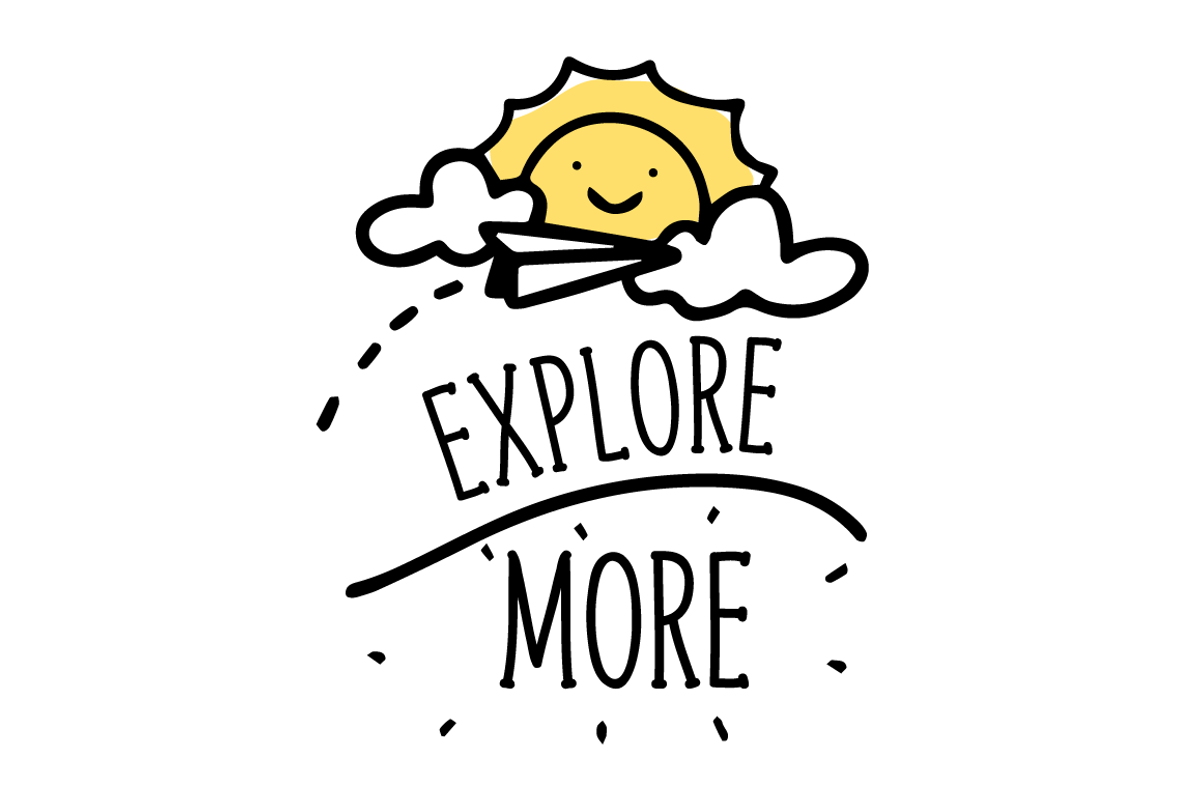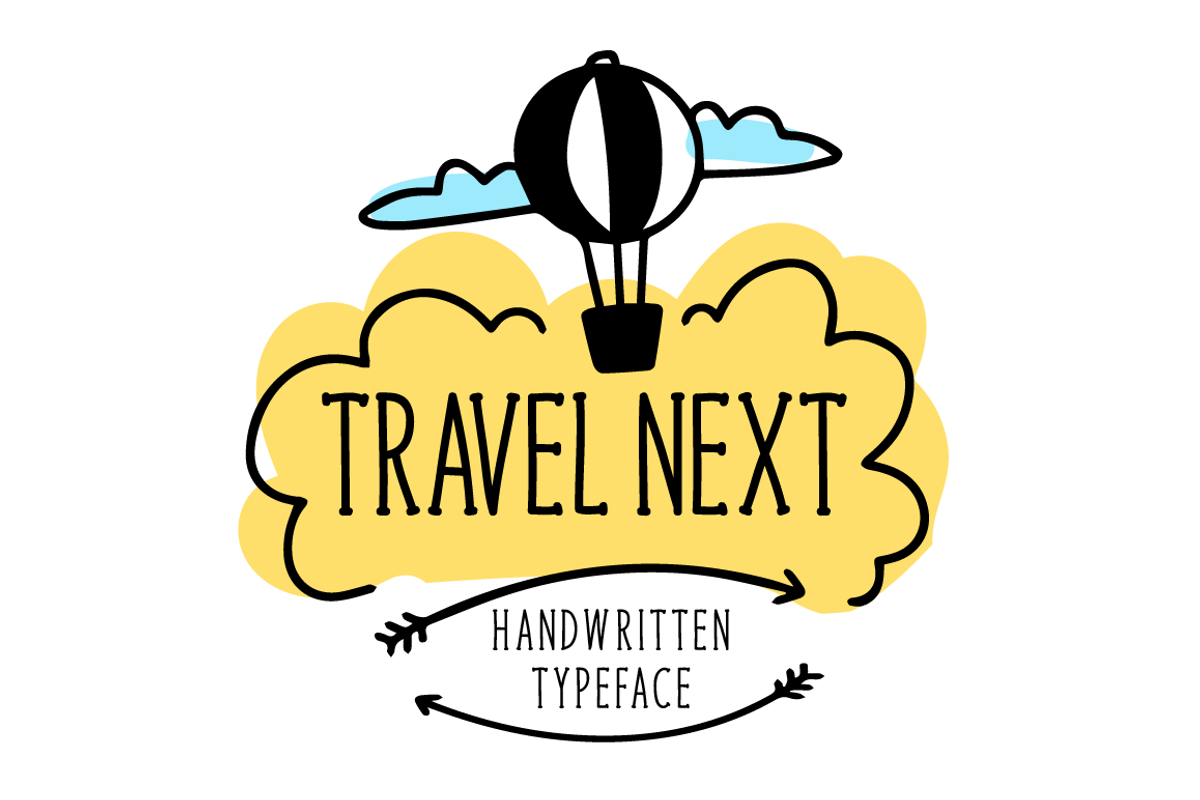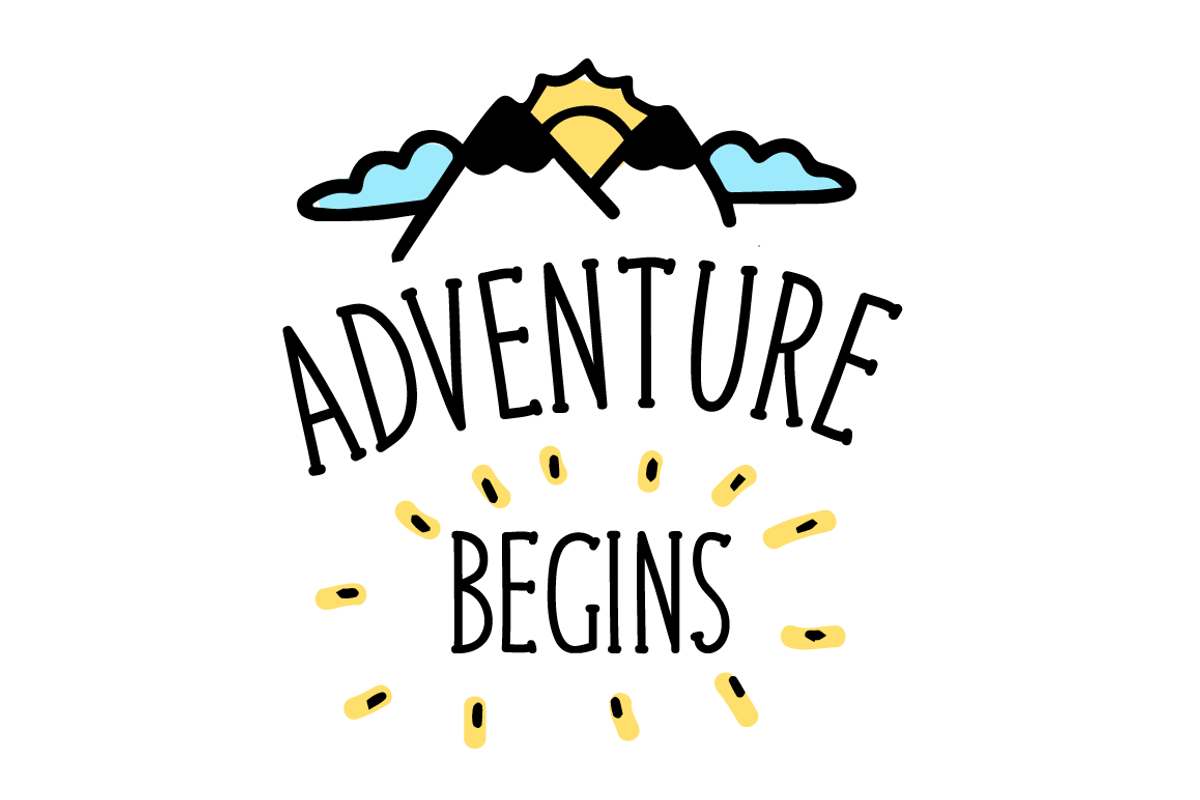
Travel Next Typeface
Introducing Travel Next!
Travel Next is a brand new handwritten font. Travel Next is perfectly suited for stationery, logos, t-shirt, paper, print design, website header, photo frame, flyer, music cover, poster, image slider and much more.
Includes a range of multilingual support